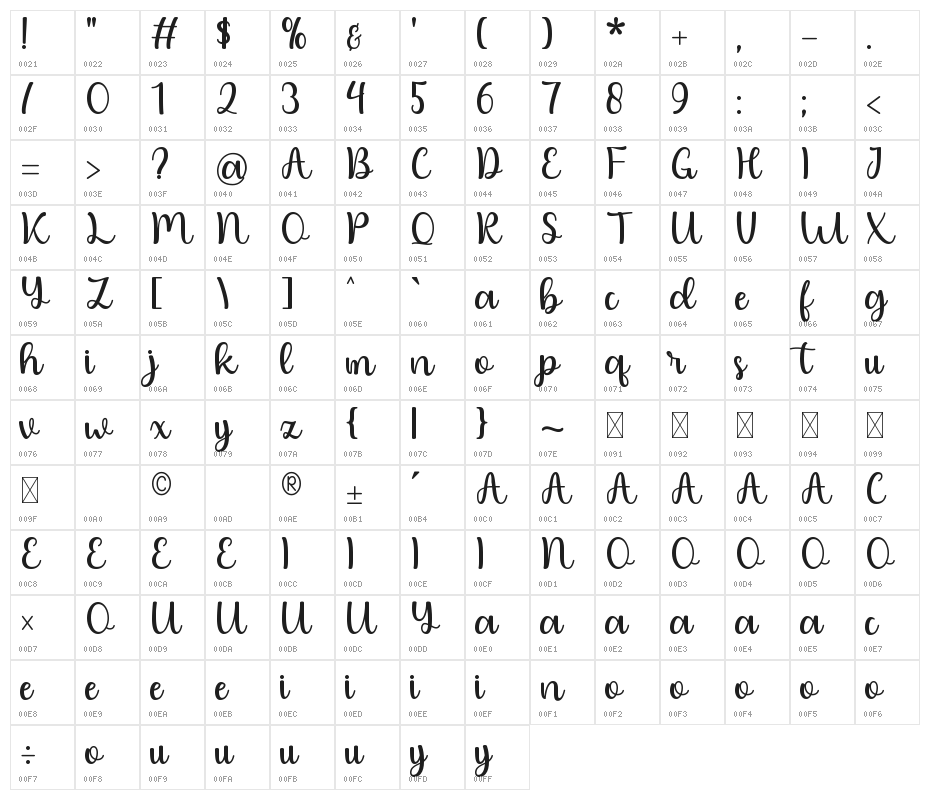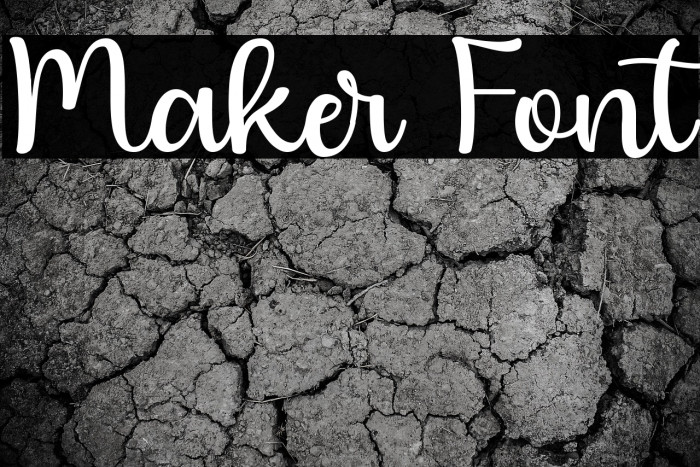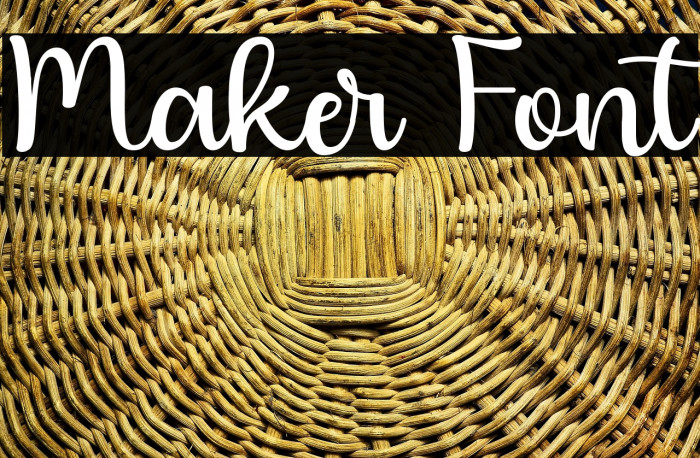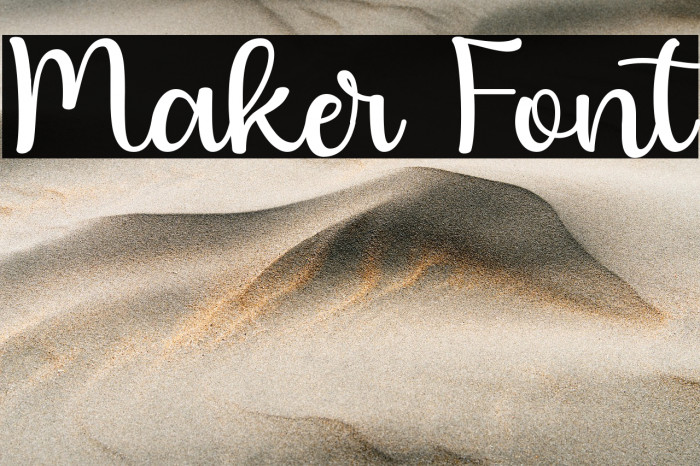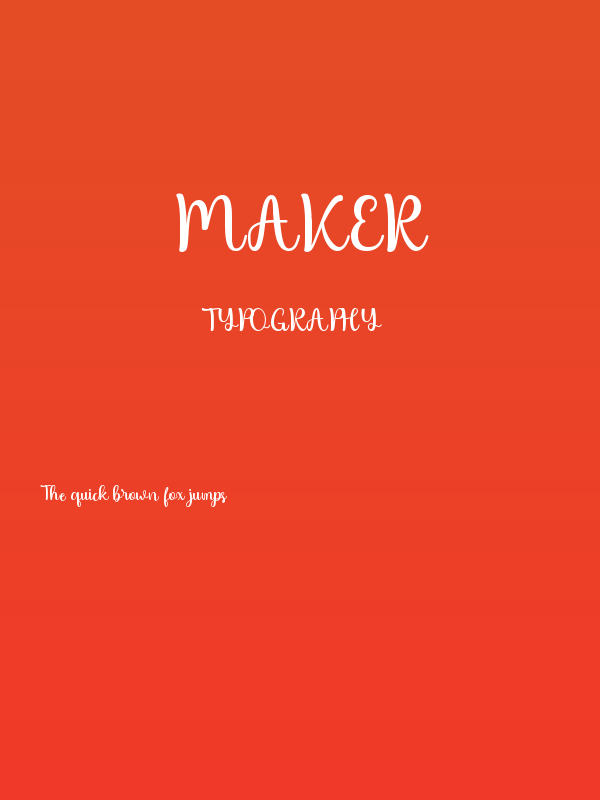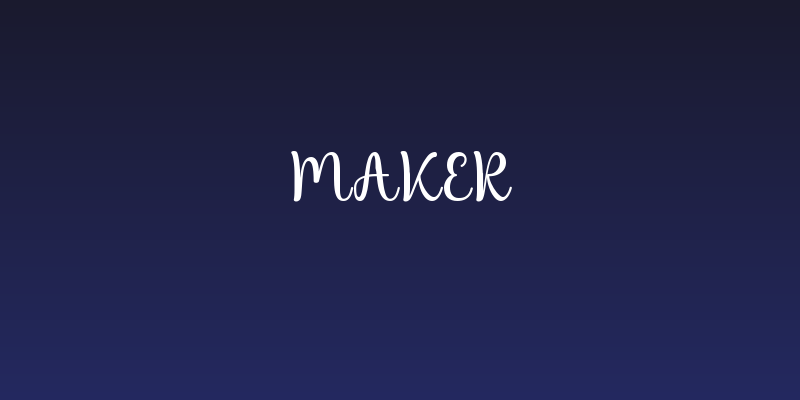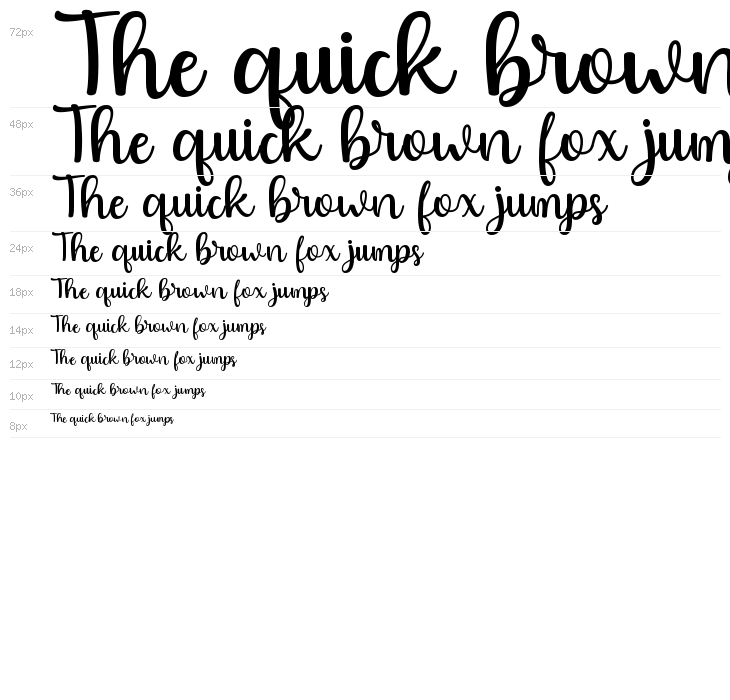
Maker Font
Maker Description
This font features a playful and flowing script style, characterized by its smooth curves and connected letters. The uppercase letters maintain a consistent height, while the lowercase letters exhibit a charming looped design. The numerals are bold and rounded, matching the overall whimsical aesthetic. Special characters are creatively integrated, adding to the font's decorative appeal. The strokes are moderately thick, providing a balanced contrast that enhances readability while maintaining an artistic flair.
| Use Case | Logos, Headlines, Decorative text |
| Proposed Projects | Ideal for greeting cards, invitations, playful branding, and decorative posters. |